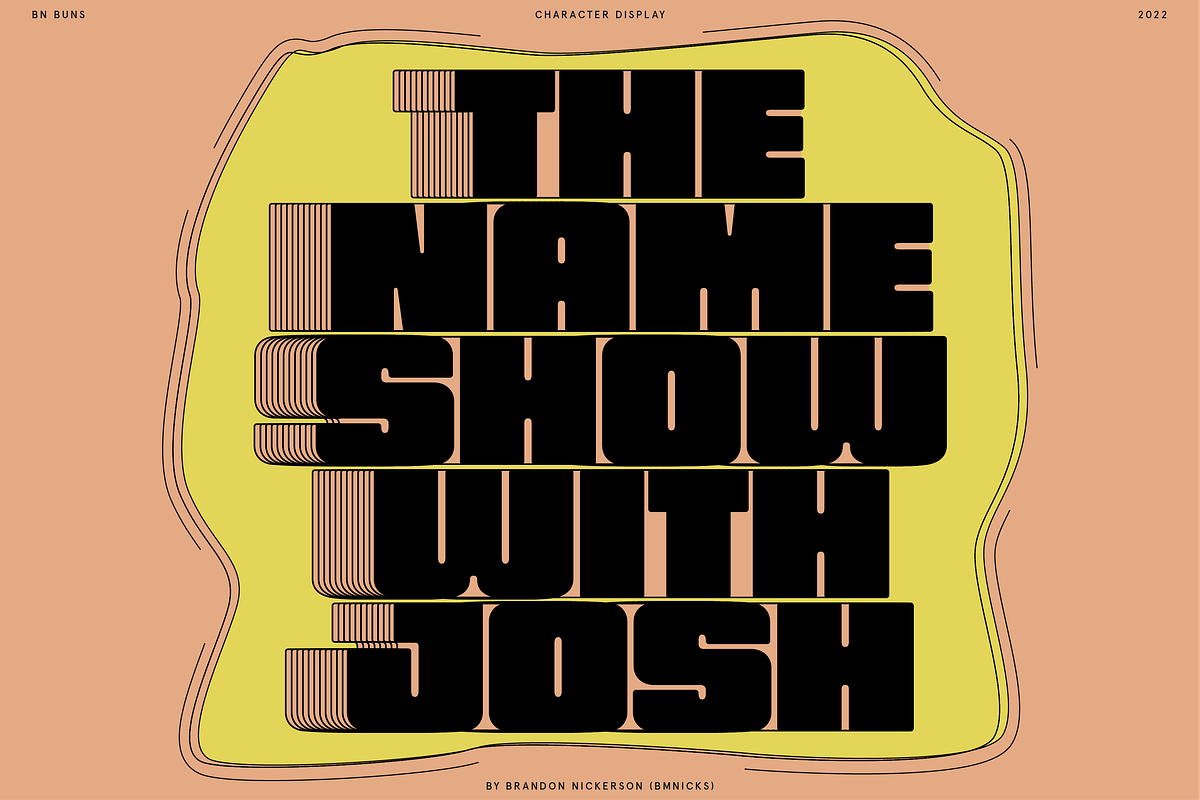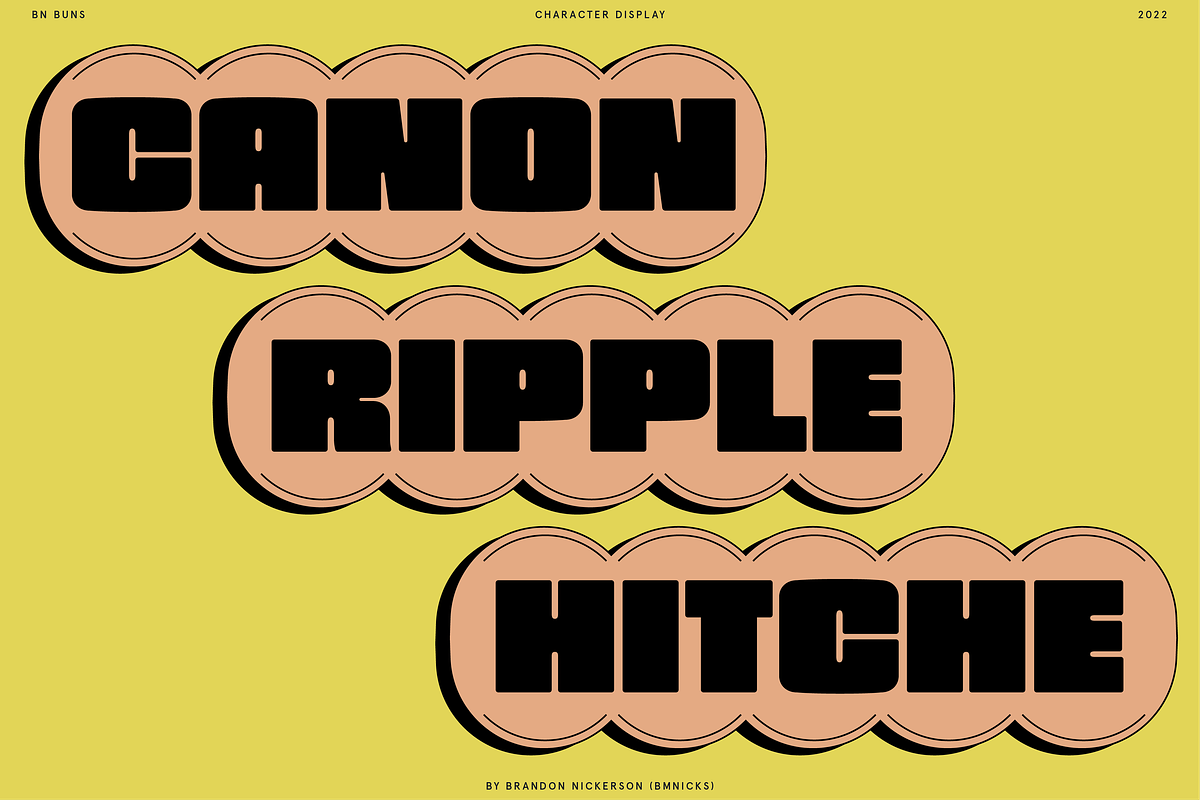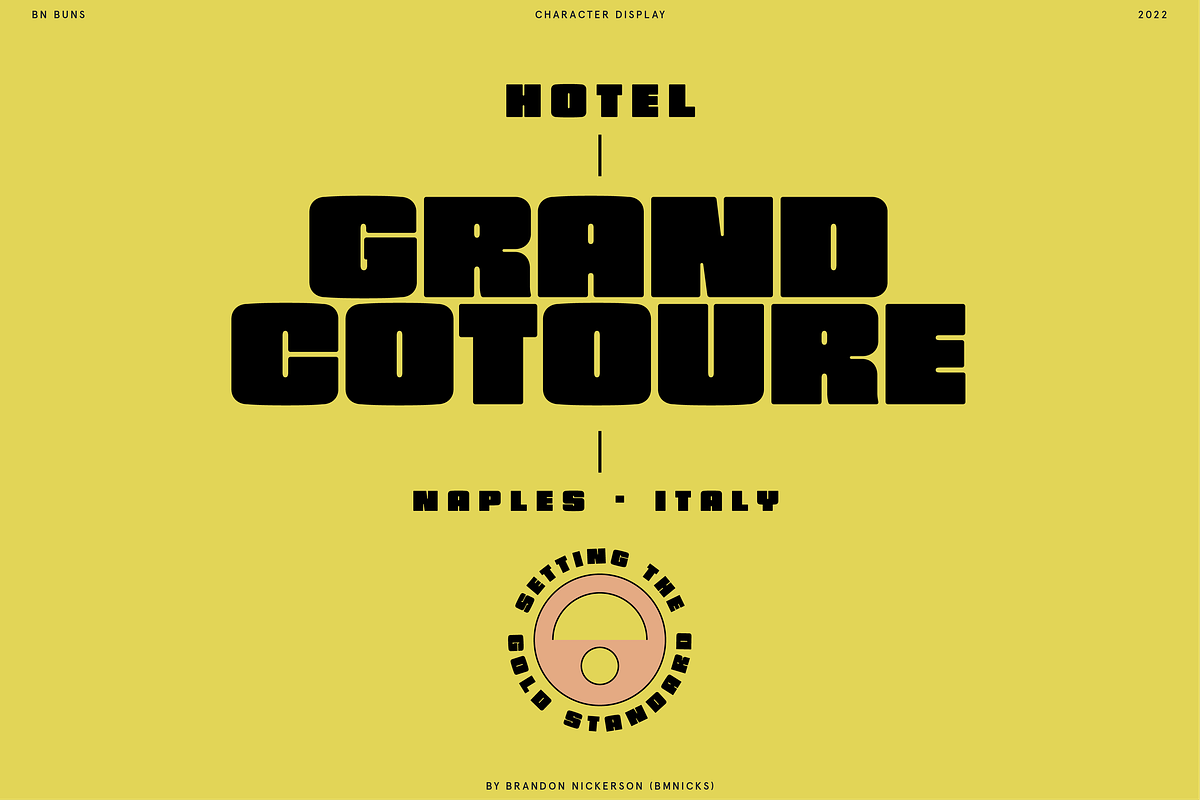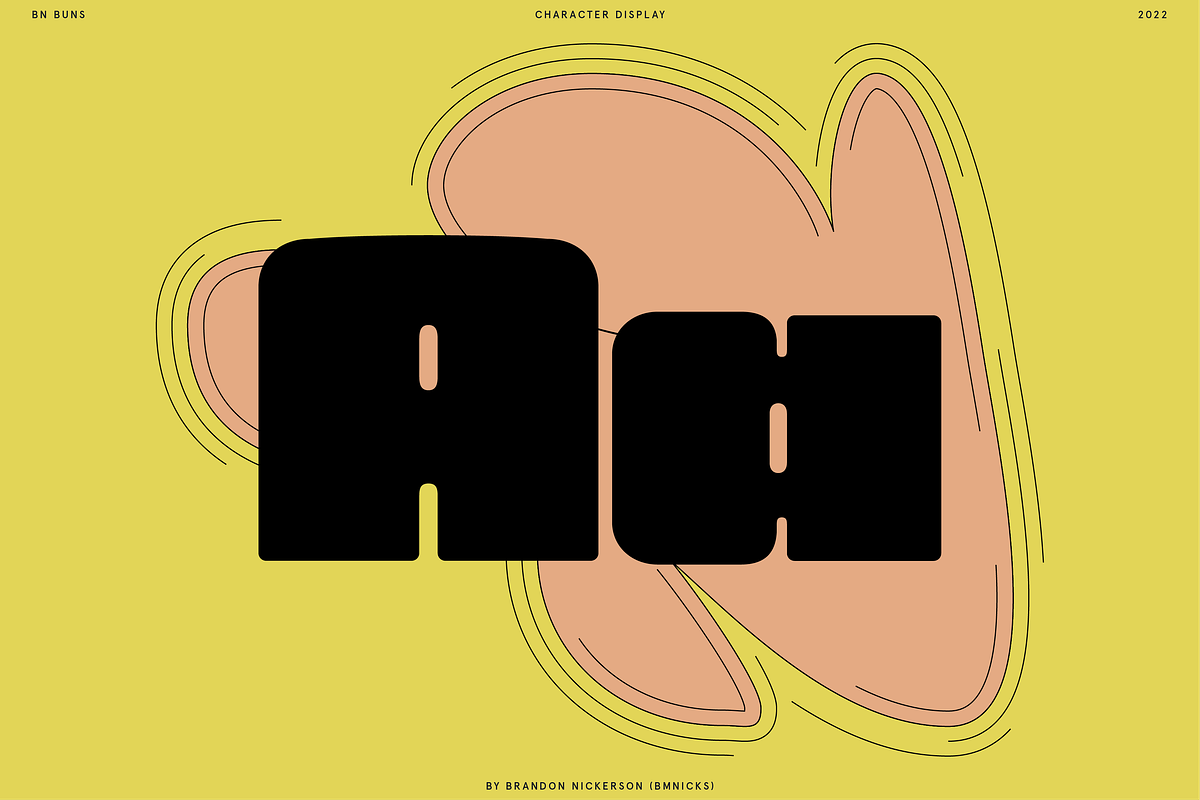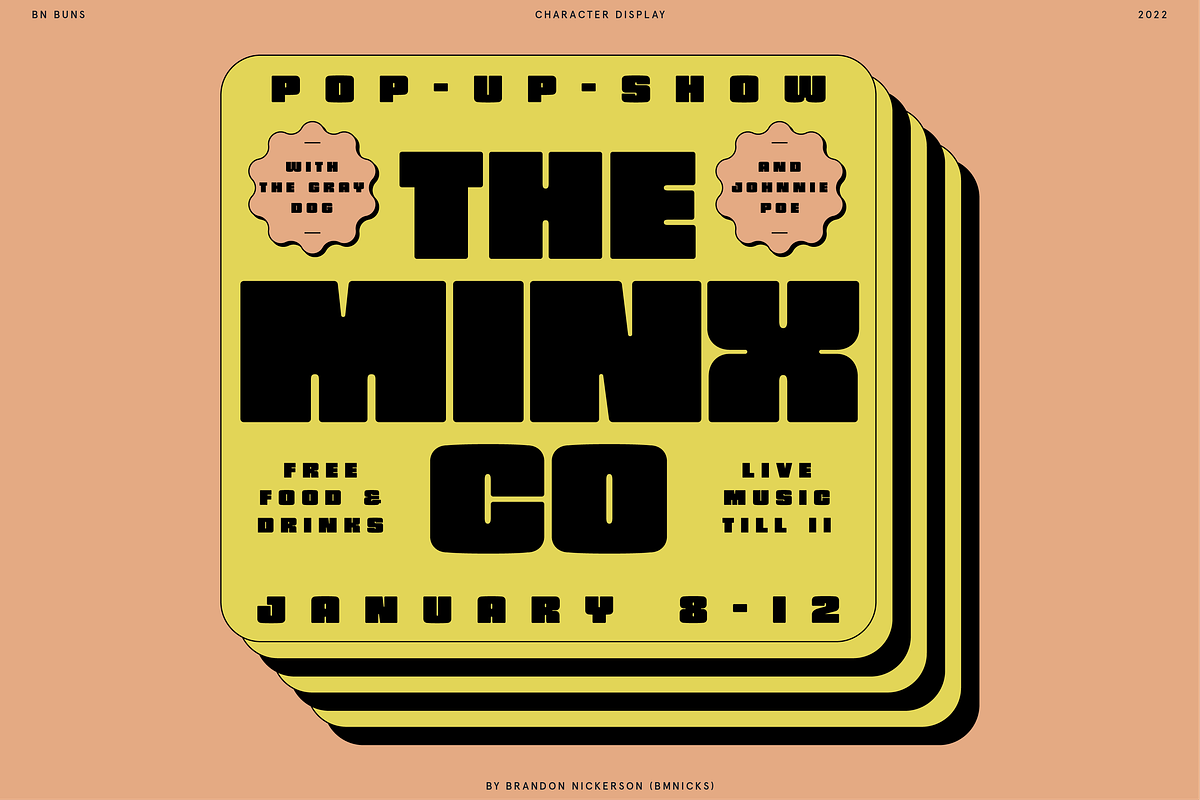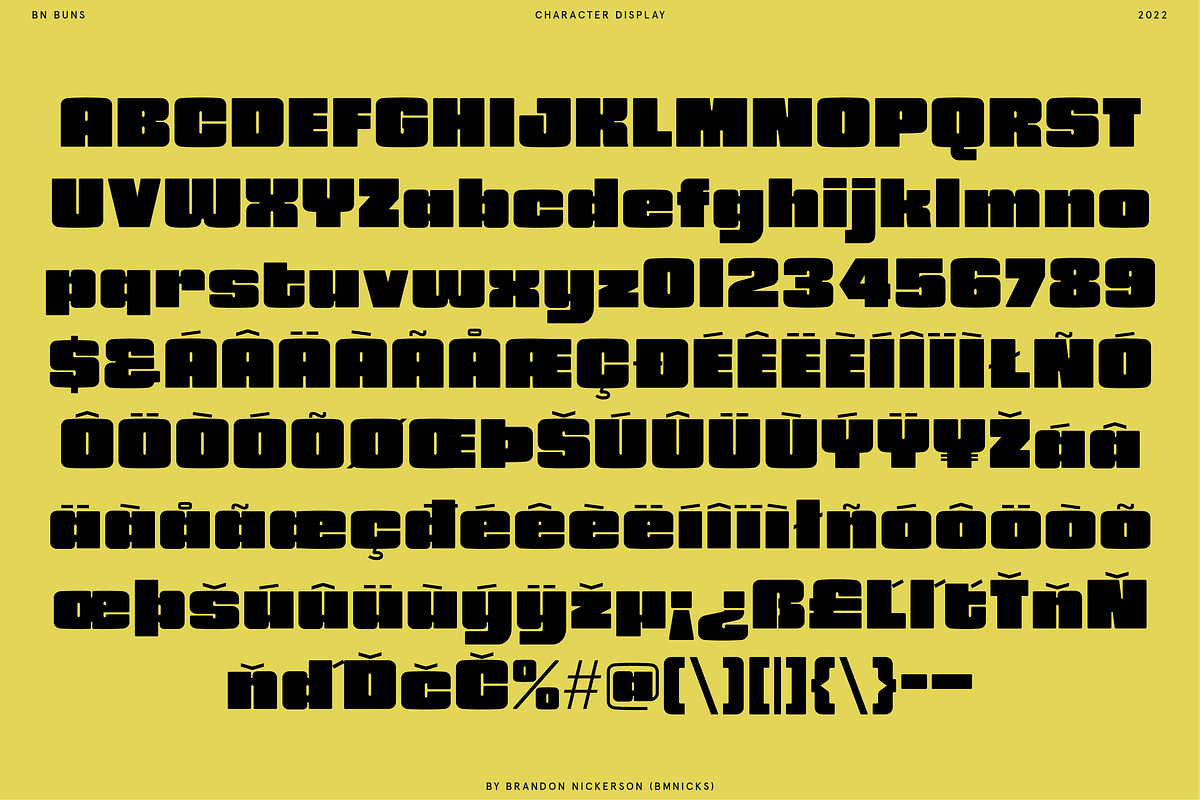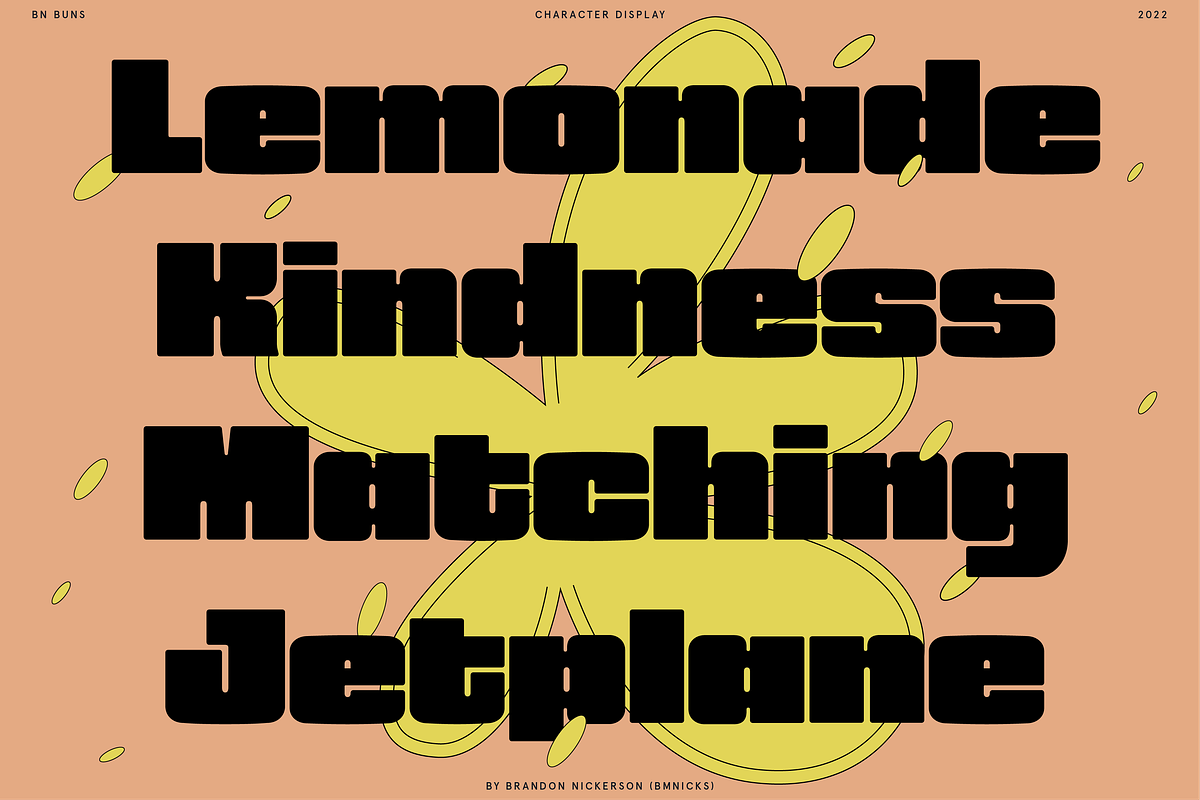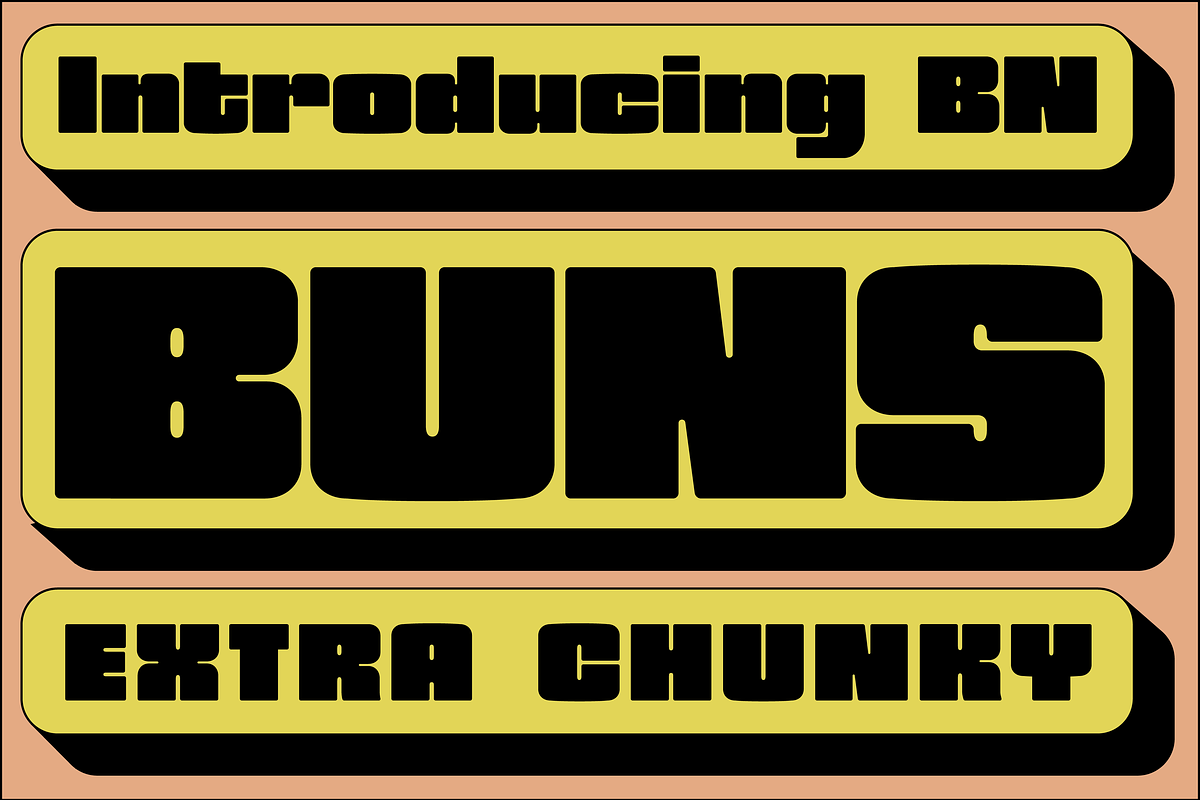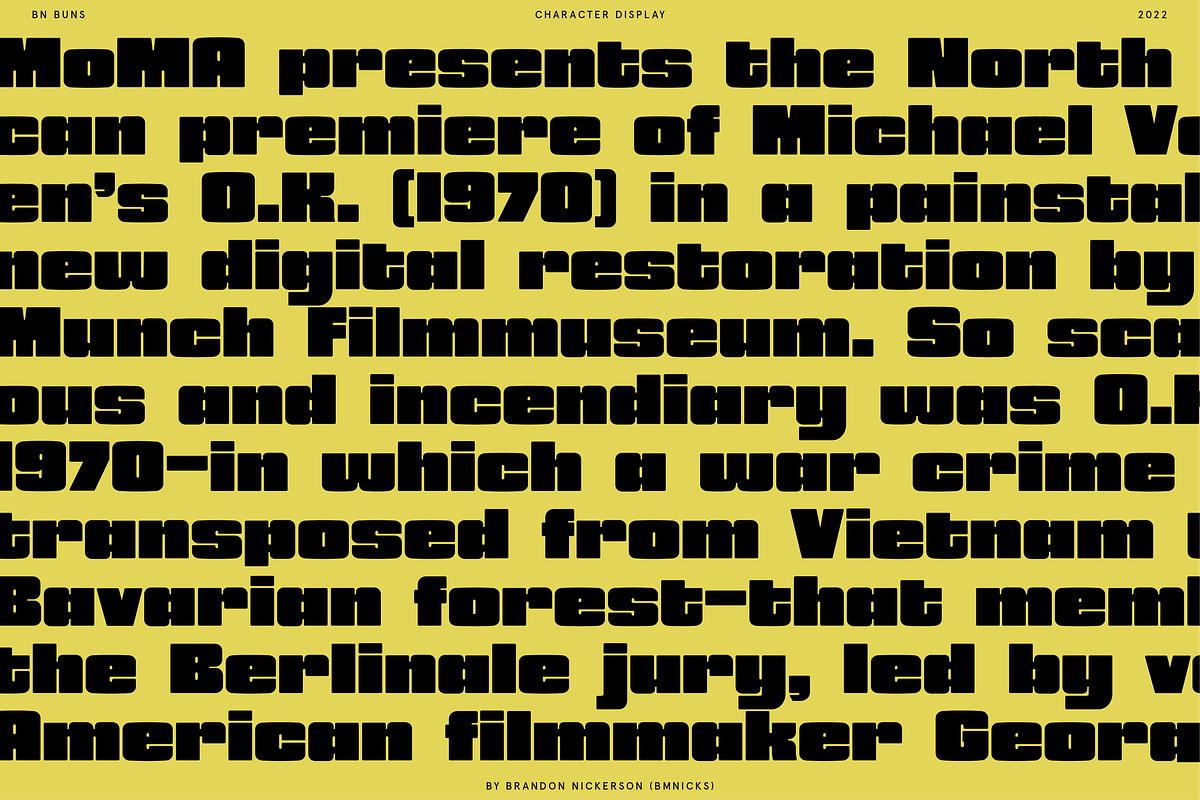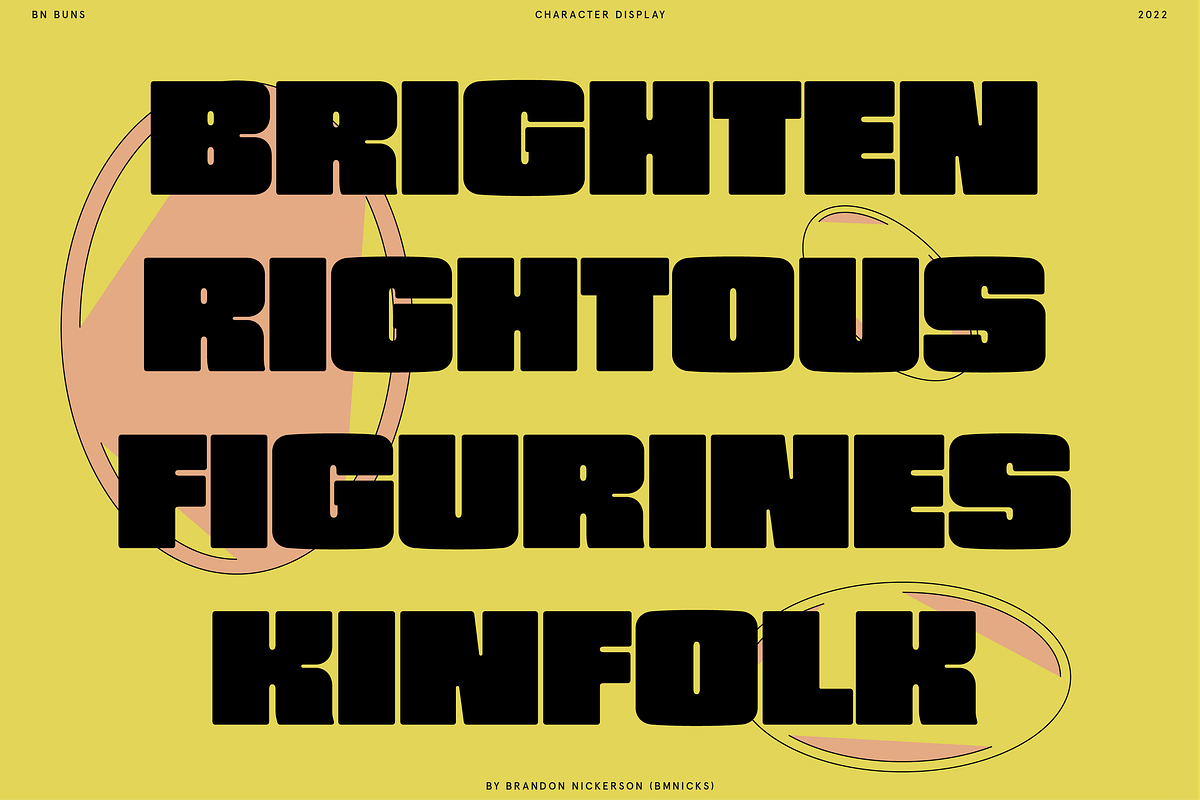
Buns
Introducing BN Buns! An extra chunky display typefaces that’s built for having fun. BN Buns utilizes a bold foundation, “inktraps” for enhanced legibility and a unique style that will make your design stand out.